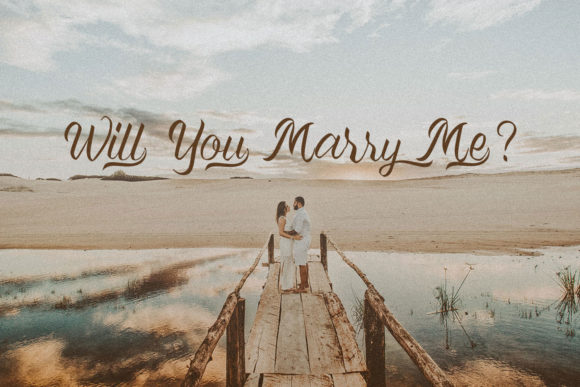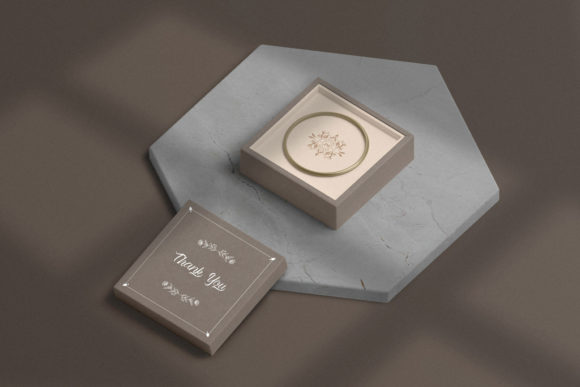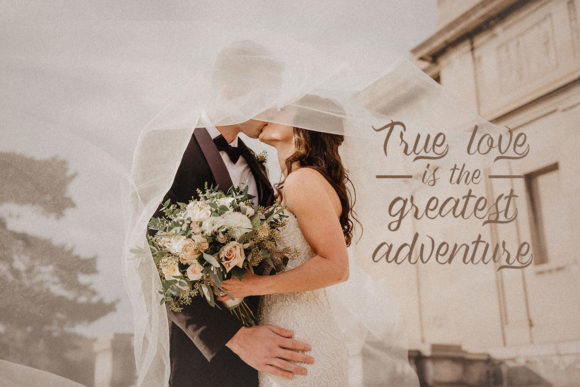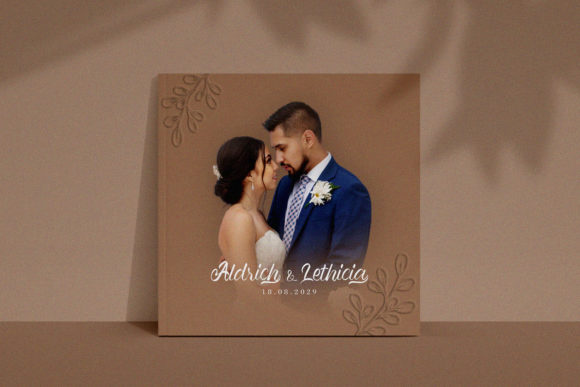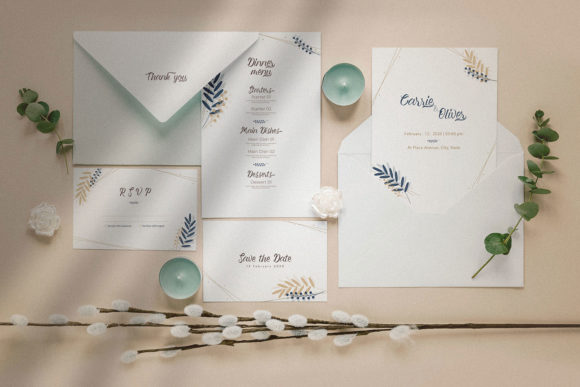
Yes, I Do! Font
Yes, I Do! is a sweet and delicate handwritten font. Dainty and joyful, this font will be ideal for writing wedding invitations, cards or any other design that may need a romantic touch! Yes, I Do! is also PUA encoded which means you can access all of the glyphs and swashes with ease!